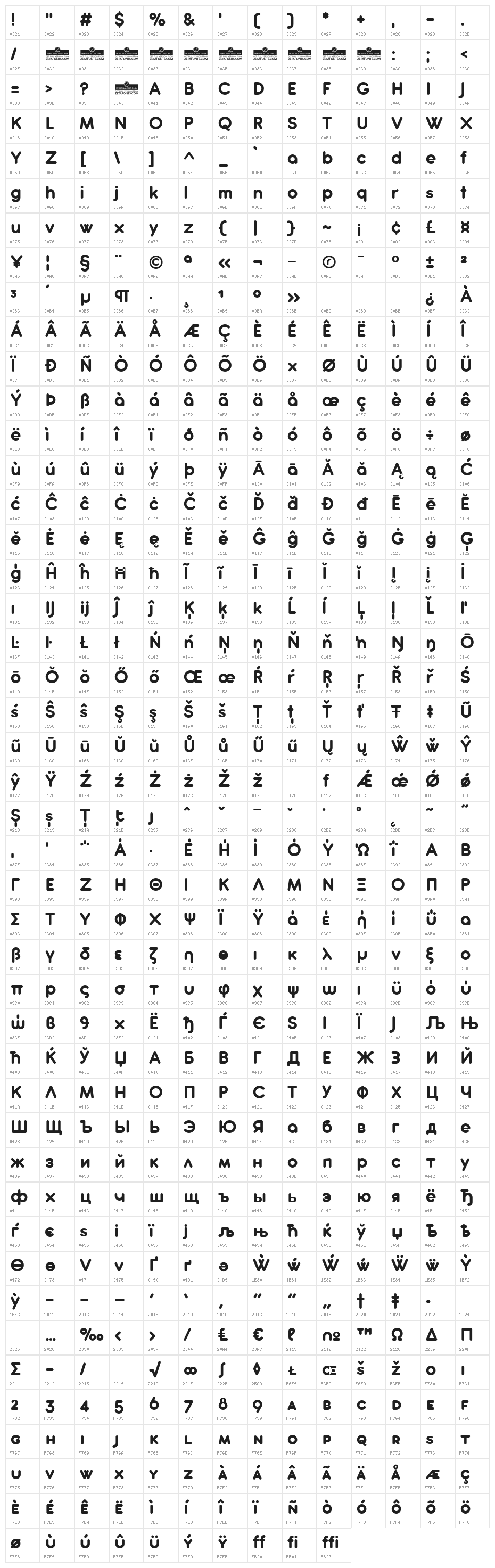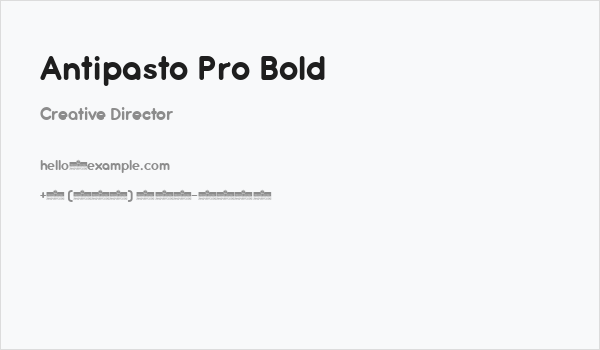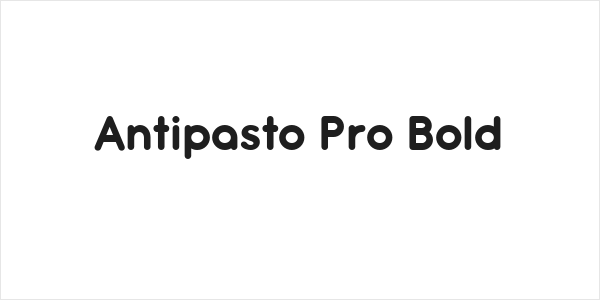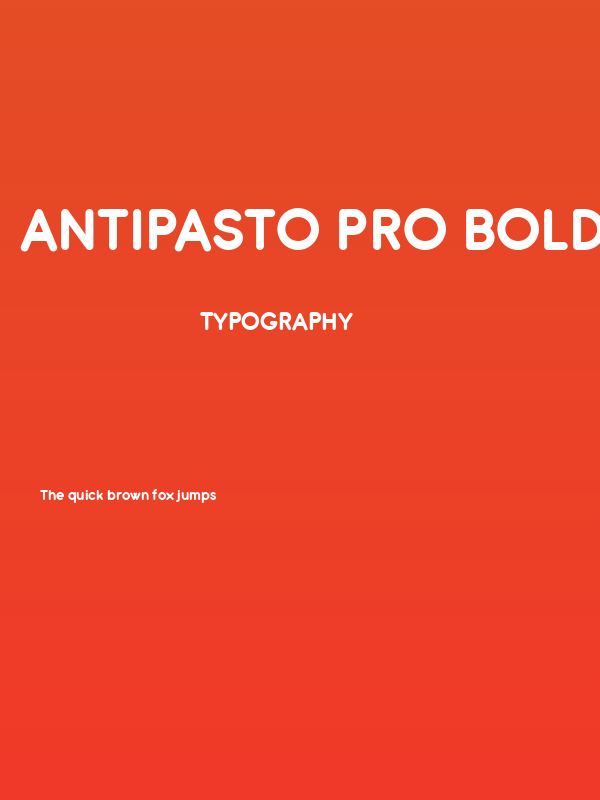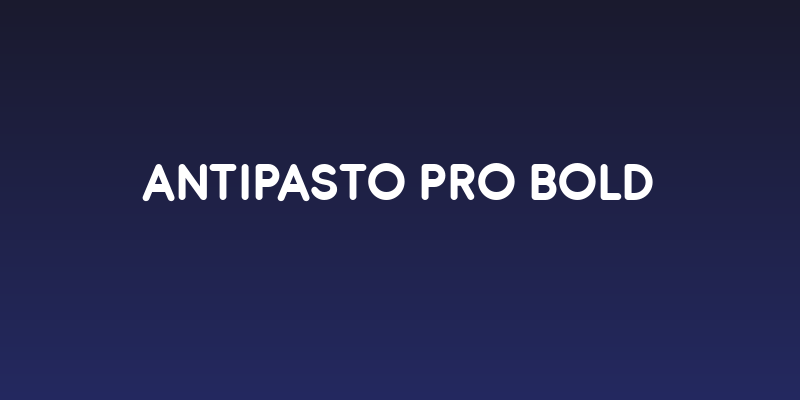
Antipasto Pro Bold Font
Antipasto Pro Bold Description
This font features a bold and rounded sans-serif style, characterized by its smooth curves and uniform stroke width. The letters are evenly spaced, providing a clean and modern appearance. The uppercase and lowercase letters maintain a consistent design, with rounded edges that give a friendly and approachable feel. The numerals and special characters are designed to match the overall aesthetic, ensuring a cohesive look across all text elements. This font is versatile, suitable for both digital and print media, and can be used effectively in various design contexts.